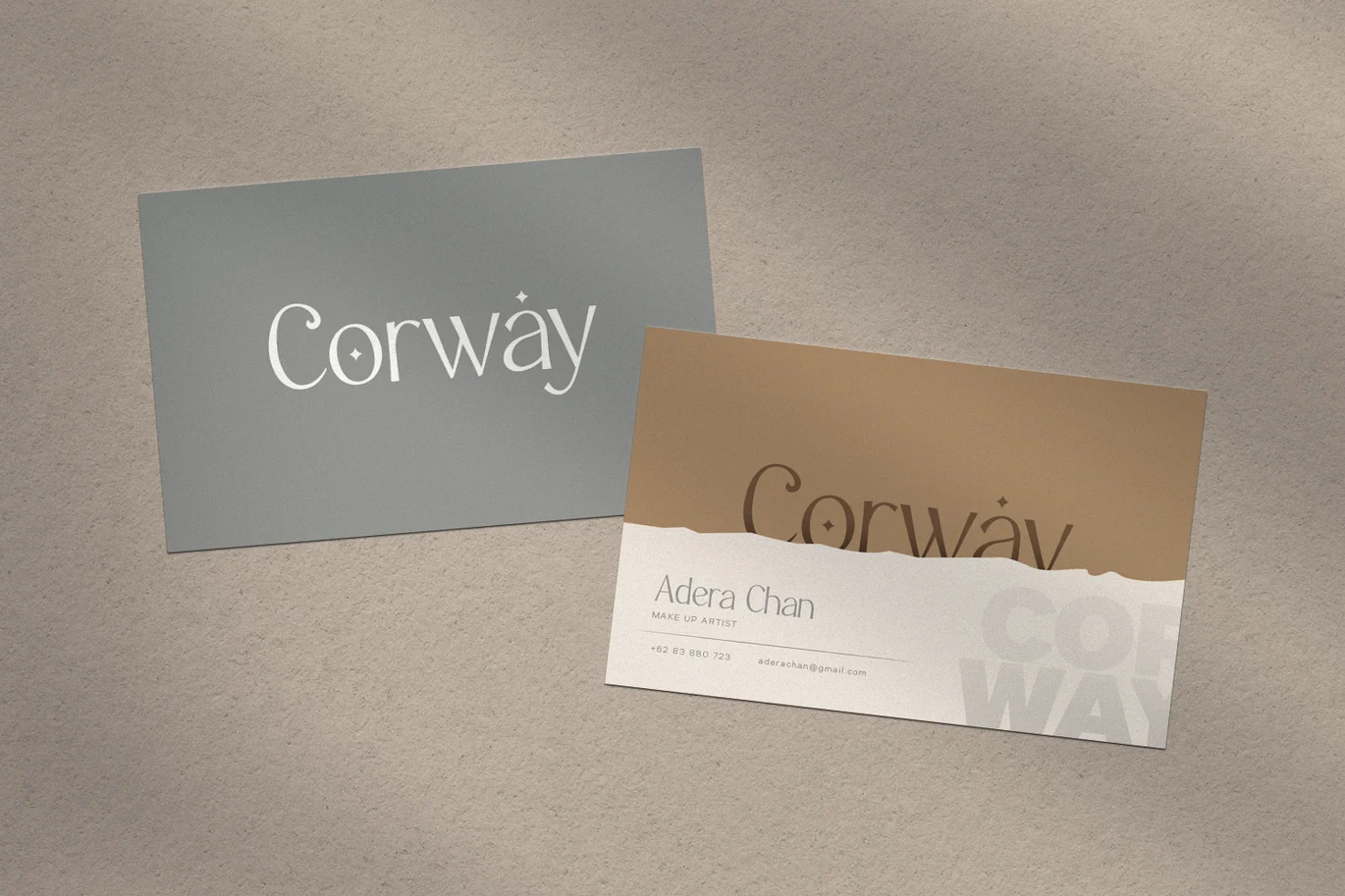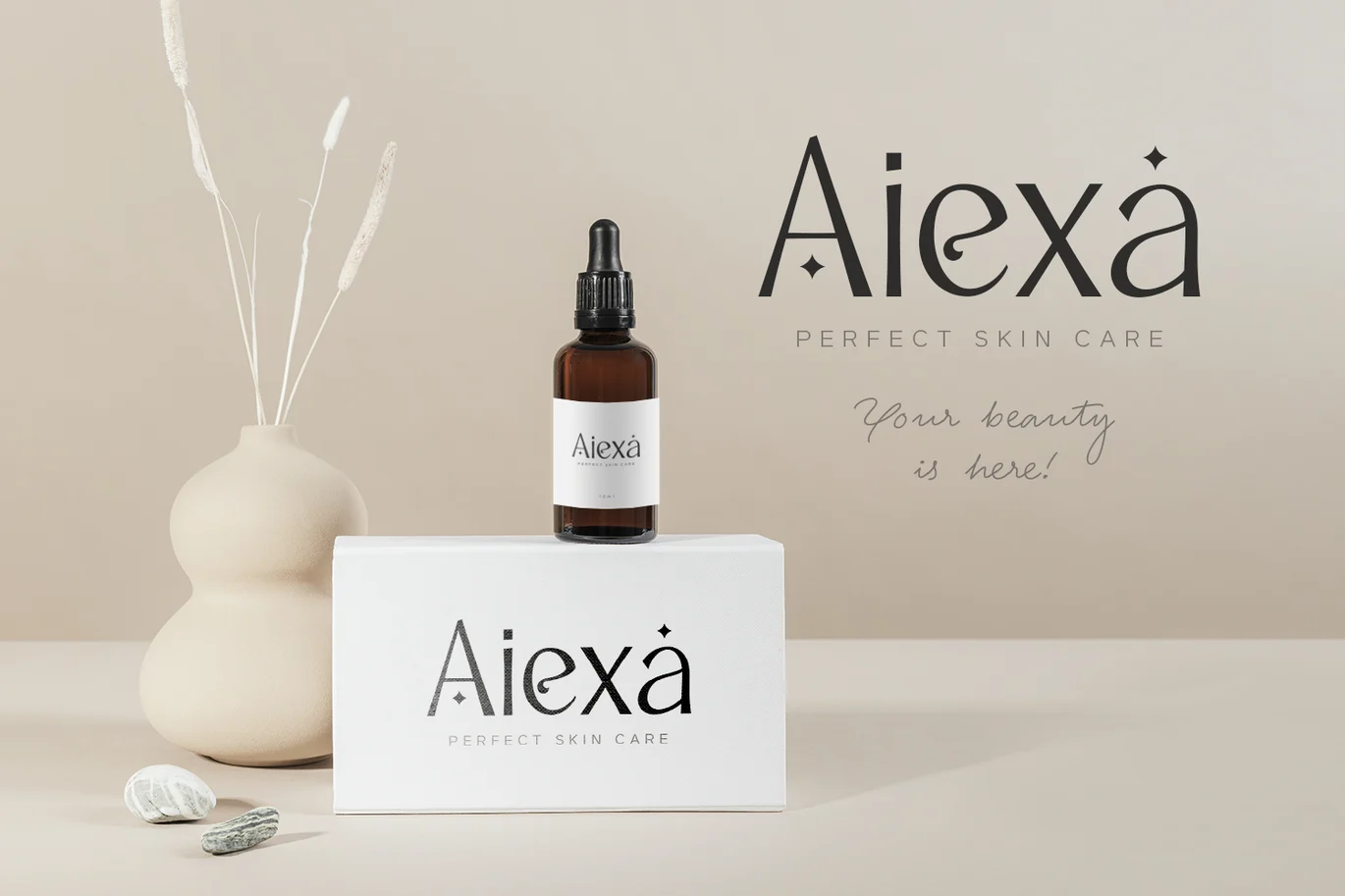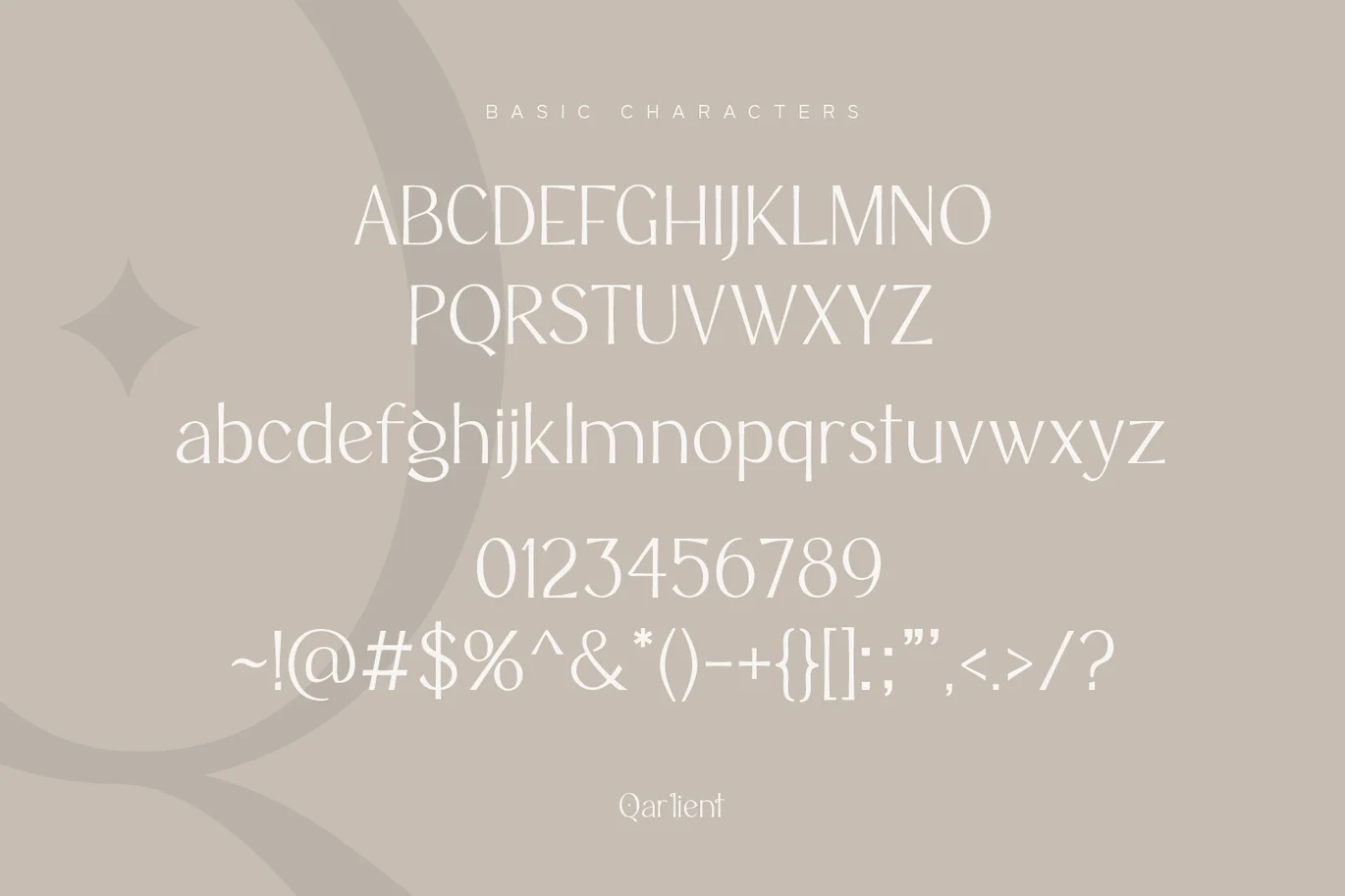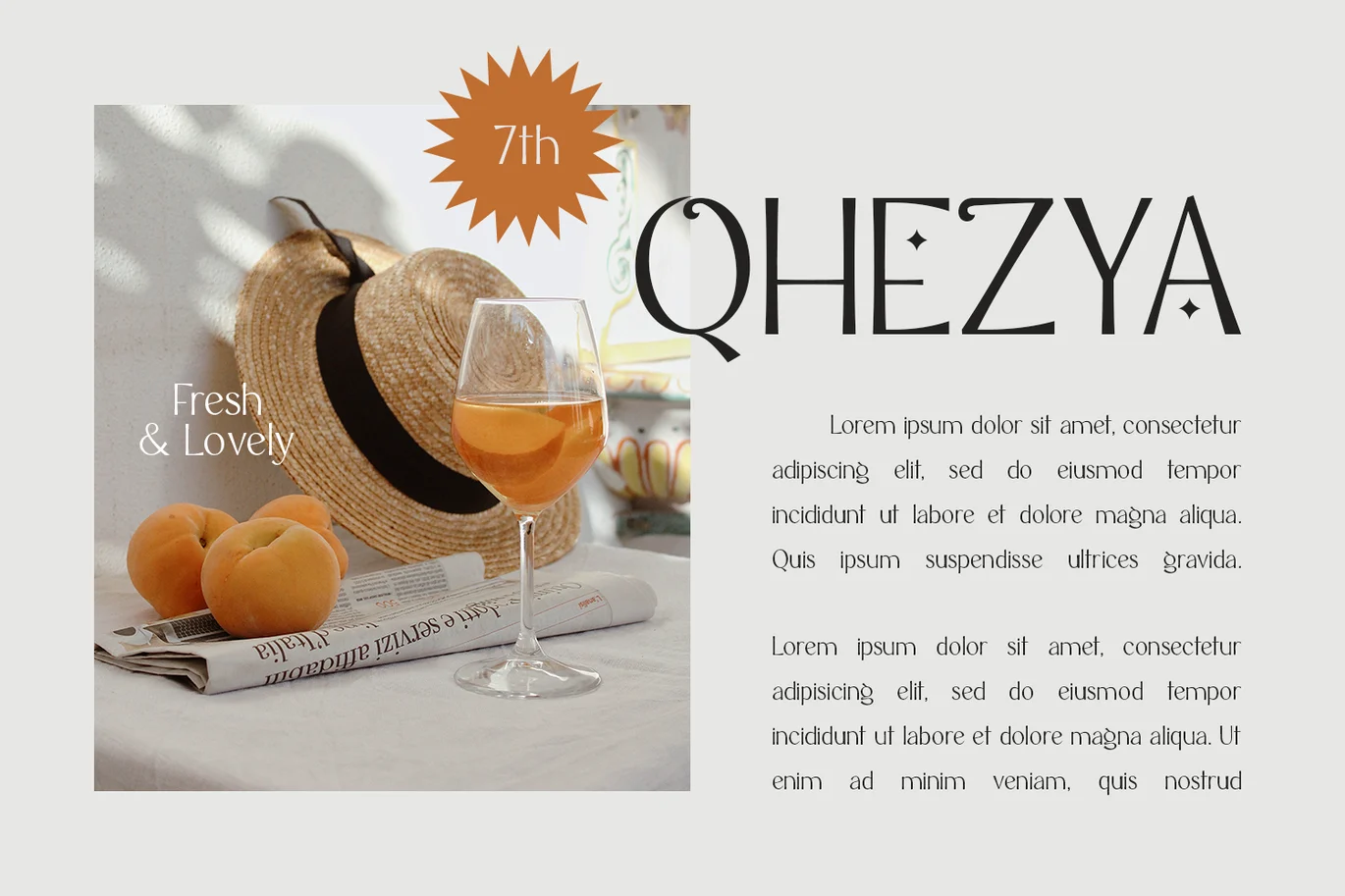
Qarlient – Luxury Display Font
Introducing Qarlient - A Modern Sans Serif Font
Qarlient is a powerful modern sans serif font with freshness, elegance and unique appearance. This font concept includes a wide range of inspirations, from ancient to classical to modern, making it a perfect font for low-key, modern and refined appearance. Ton of beauty and luxury alternates make this serif font very versatile. This gives any branding or logo design looks unique. Qarlient font is perfect for Magazine, Social Media, Poster, Business Card, and Many more that needs Unique touches.
FEATURES
- Stylistic Alternates
- Uppercase and Lowercase letters
- Numbering and Punctuations